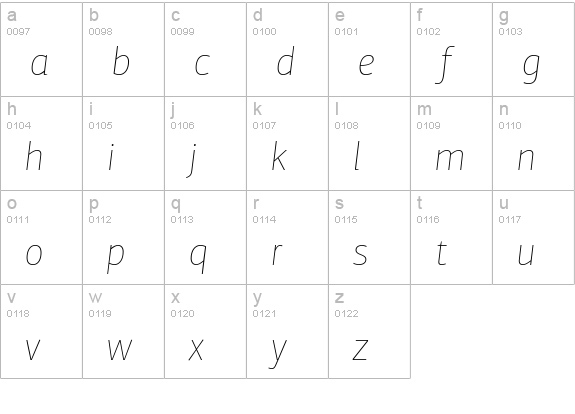
PFAgoraSansPro-XThinItalic is a sleek and elegant typeface that exudes sophistication and modernity. Its thin and italicized design adds a touch of flair to any project, making it perfect for conveying a sense of style and refinement. The graceful curves and delicate lines of this font create a sense of fluidity and movement, making it a versatile choice for a variety of design applications. What's even better is that PFAgoraSansPro-XThinItalic is available for free download at FontsMarket.com. This means you can easily access this high-quality font without any cost, making it a valuable addition to your font library. Whether you're working on branding materials, editorial design, or web graphics, PFAgoraSansPro-XThinItalic is sure to elevate your projects with its sophisticated and contemporary aesthetic. Download it today and add a touch of elegance to your designs!